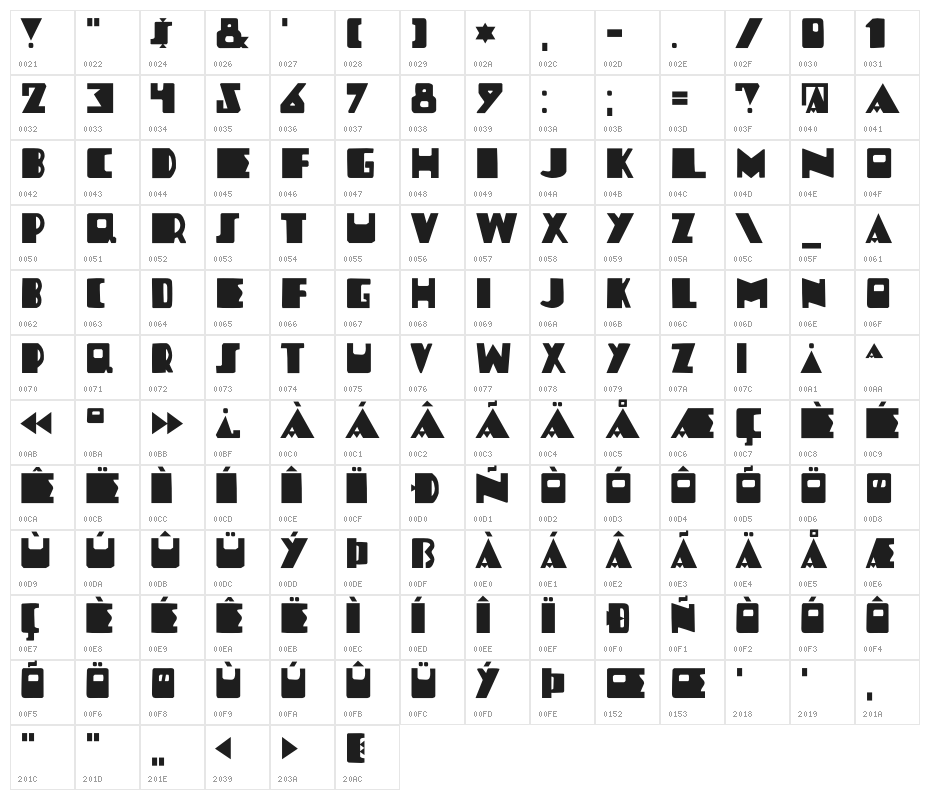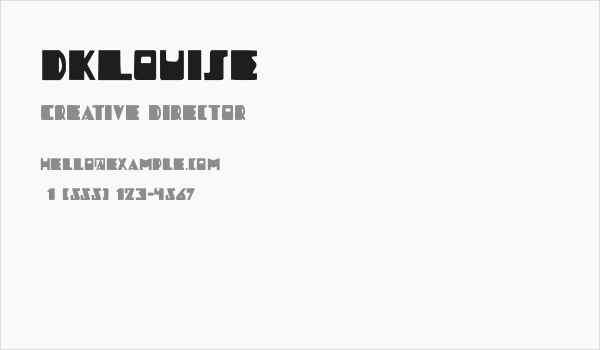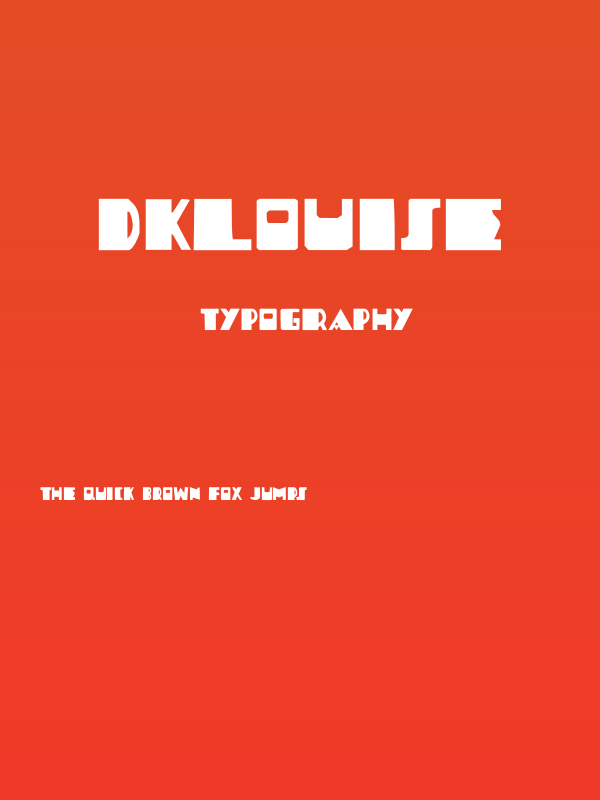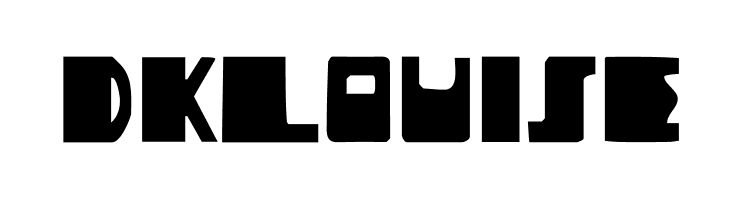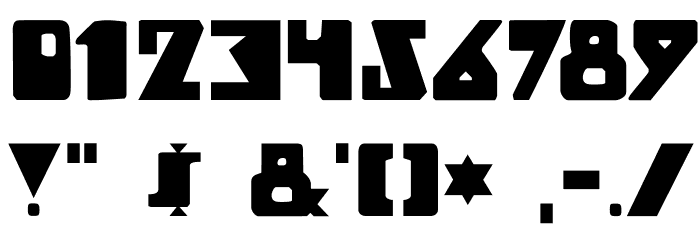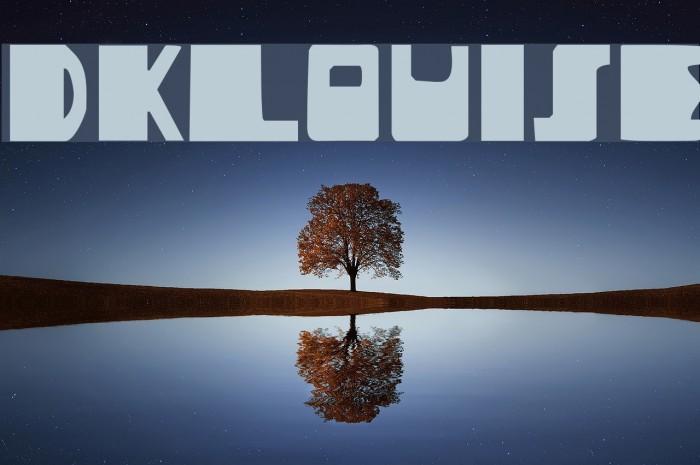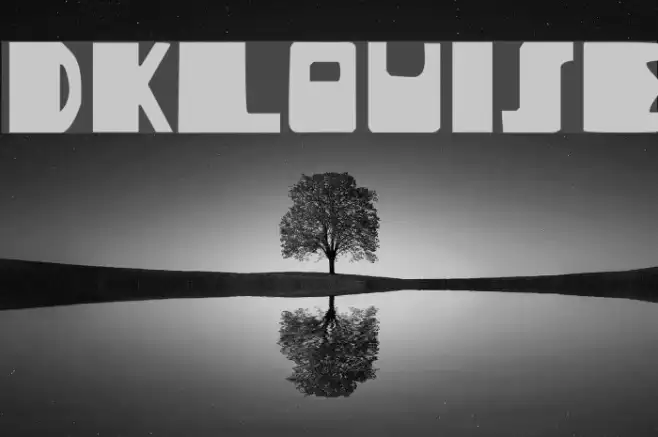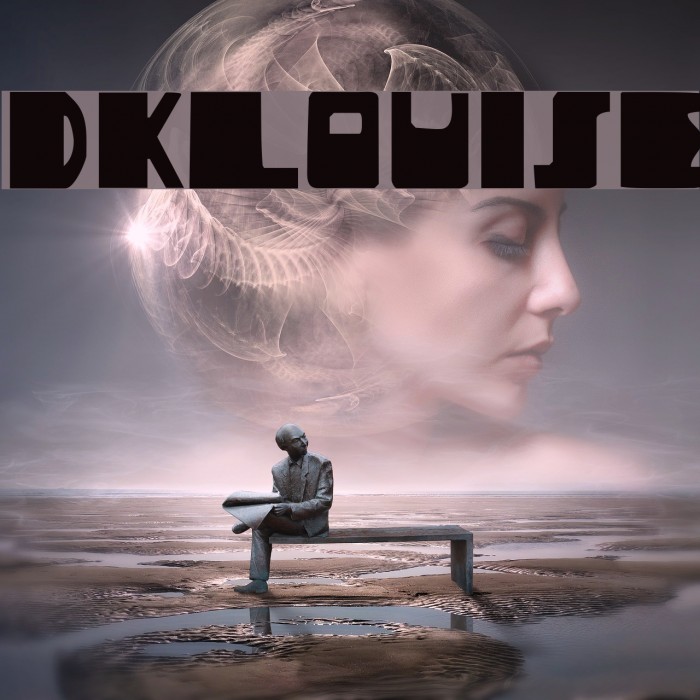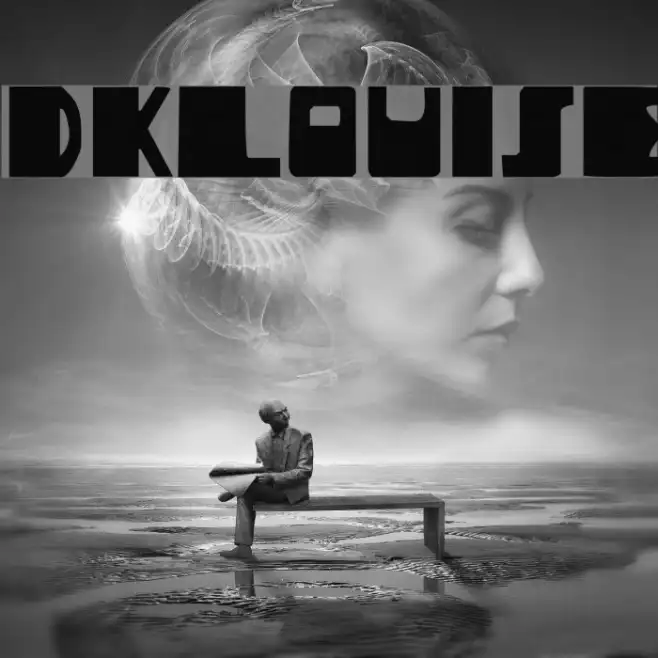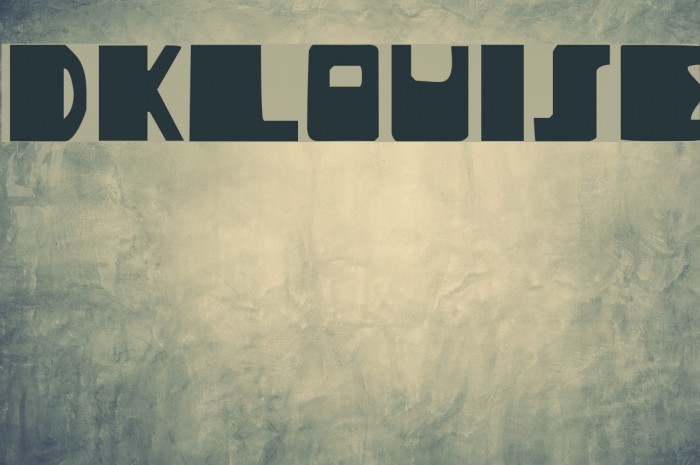
DKLouise Font
DKLouise Description
This font features a bold and striking design with a geometric and angular style. The characters are crafted with sharp edges and a blocky appearance, creating a sense of strength and modernity. The uppercase and lowercase letters maintain a consistent width, giving the font a uniform look. The numbers and special characters follow the same bold and angular theme, making them stand out prominently. The unique design elements make this font suitable for projects that require a strong visual impact.
| Proposed Projects | Ideal for posters, logos, branding, and headlines that need a modern and impactful look. |